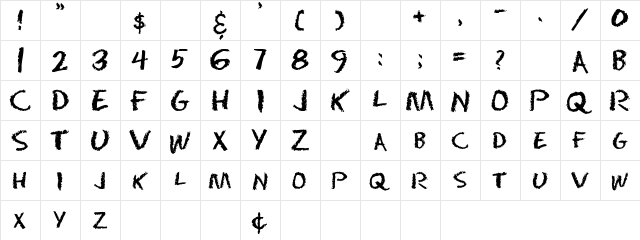
ChalkDust Regular
Design Context for ChalkDust Typeface
ChalkDust is a composed and adaptable typeface that performs quietly and consistently across a wide range of design contexts.